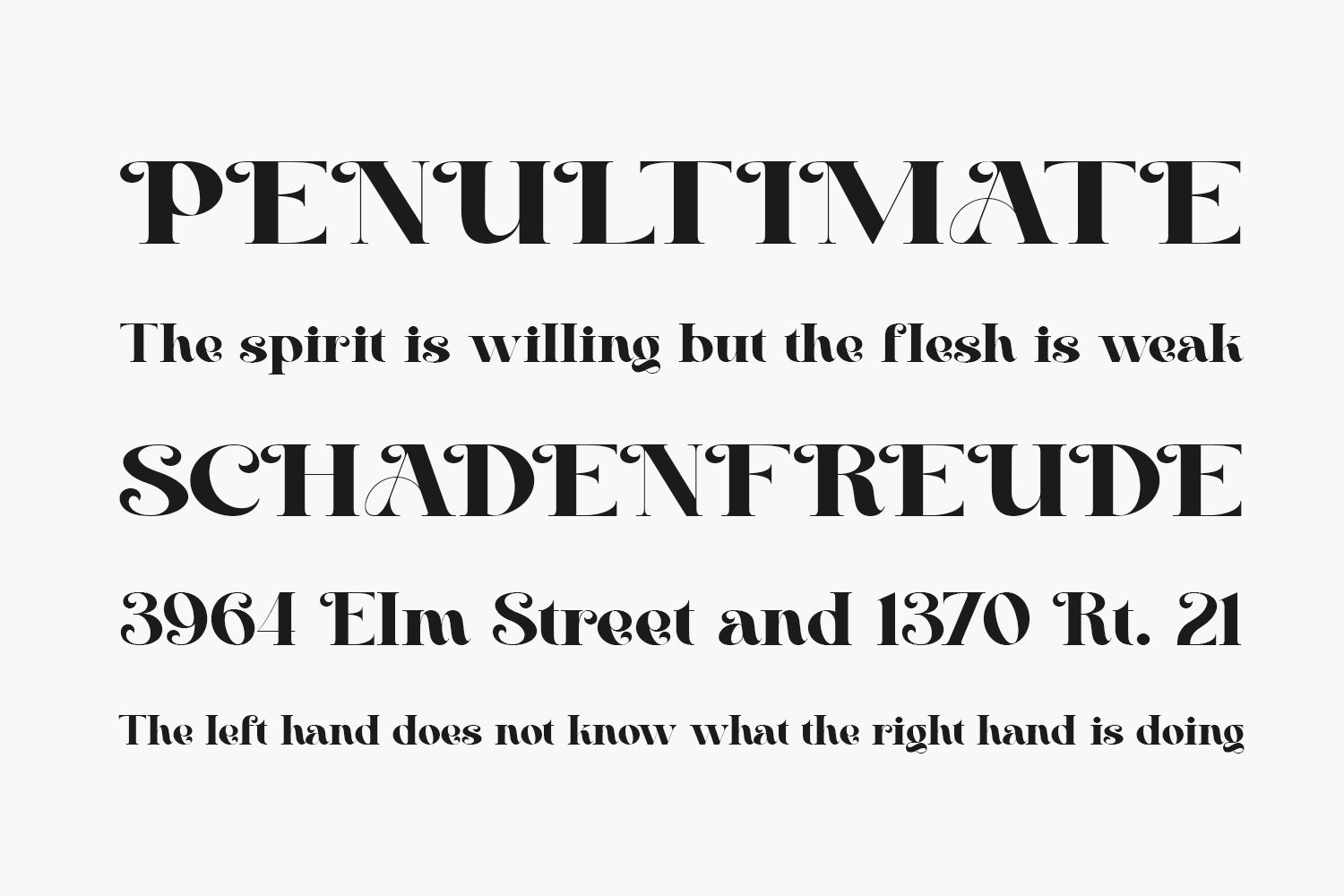
Merlovaz Free Font – Vintage Serif for Bold & Elegant Design Projects
Merlovaz is a bold and elegant serif font designed by Ilhamtaro to bring classic charm and strong visual presence to your creative projects. With its thick letterforms, unique curves, and timeless appeal, this free decorative typeface works perfectly for crafting vintage logos, brand badges, magazine headlines, liquor labels, and more. Available in TTF format — ideal for designers seeking a high-quality serif font that blends old-world elegance with modern clarity.
Why Choose Merlovaz?
- Vintage-Inspired Style: Combines sturdy serifs with soft curves for a refined, nostalgic appearance.
- Ideal for Retro Branding: Perfect for whiskey bottles, boutique branding, or heritage-style packaging needing authenticity.
Where to Use Merlovaz?
Merlovaz shines across a variety of design applications:
- Logos & Badges: Adds sophistication to vintage car brands, retro fashion labels, or artisanal shop identities.
- Liquor & Food Packaging: Perfect for wine, beer, or spirit bottle labels with an upscale, handcrafted tone.
- Magazine Headlines: Stands out in editorial layouts where boldness meets legibility.
- Packaging Design: Brings character to product tags, vintage goods, or lifestyle brand materials.
- Poster & Billboard Design: Designed for large sizes — makes headers pop in outdoor advertising.
Design Tips with Merlovaz